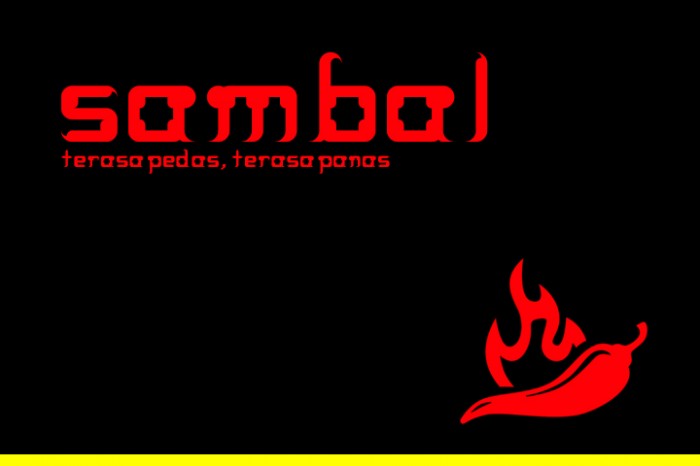
• The original name of this Typeface is "Sambal Bebek"
My typeface is inspired from the most famous Indonesian eating companion, Sambal. Sambal is an authentic Indonesian spicy dipping. Sambal contains chili, garlic, tomato, etc. Because of its spiciness, chili is the most famous ingridient of  Sambal . Sambal mostly used as a companion for eating fried duck (Bebek Goreng), penyetan, etc. As chili is the most famous ingridient, it impacts my typeface form which looks like chilis (a little bit curly).
Nice font, little bit look like x-man font but still like it !
good typeface there
you got cool font man!
Nice typeface... Good concept...
The font is well done, its already represent the shape of a chilli. But..... take a look at the "X", dont you think it's Overcurly?? :P
cute, unique typeface good job
Keren vin ! unik fontnya kayak cabe keep it up :)
Nice typeface, well-done :) Ada kesan 'cabe'-nya ^^
quite nice...
nice vin tapi x nya agak aneh hehe. terus berusaha :)
nice fonts.. good design.. the curls represent the chilly :D
nice font, the "x" kinda look like a claw than a chili I think
fontnya unik dan lekukan huruf sangat halus
extraordinary typeface dude
great job
hurufnya lucu banget!
Good typeface....
Fontnya suda konsisten dan unik. Good job!
keren abis ...
good job, looks like chili
Great concept and well executed. Good job!
Cool!
good and unique concept, good job
Baguss vin!
Nice typeface :)
Unique and cool font
good job
kurang menarik vin, sambel bebek kalau fontnya gitu mah rada yaapa gitu
consistent and very unique font, good job!
stroke huruf "i", "j", "l", dan "t" terkesan lbh tipis dari stroke huruf lainnya..
bagus kok c
nice tok
keren, unik, nice!
keren dan unik... GOOD JOB
Cool typeface!
Probably the descenders heights need to be equalized with the height of the uppercase.
But overall, well done!
DOPE TYPEFACE THOOO!!! kliatan bgt sisi cabe dan bebeknyaaaaaa!! aww syukaaaaa kueren pol KC KECE
cool and nice font.. good job!
bagus n konsisten banget :)